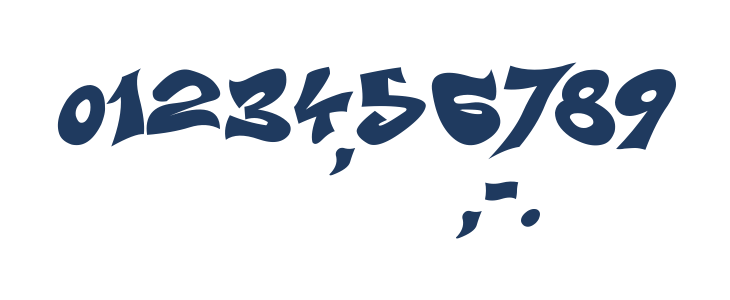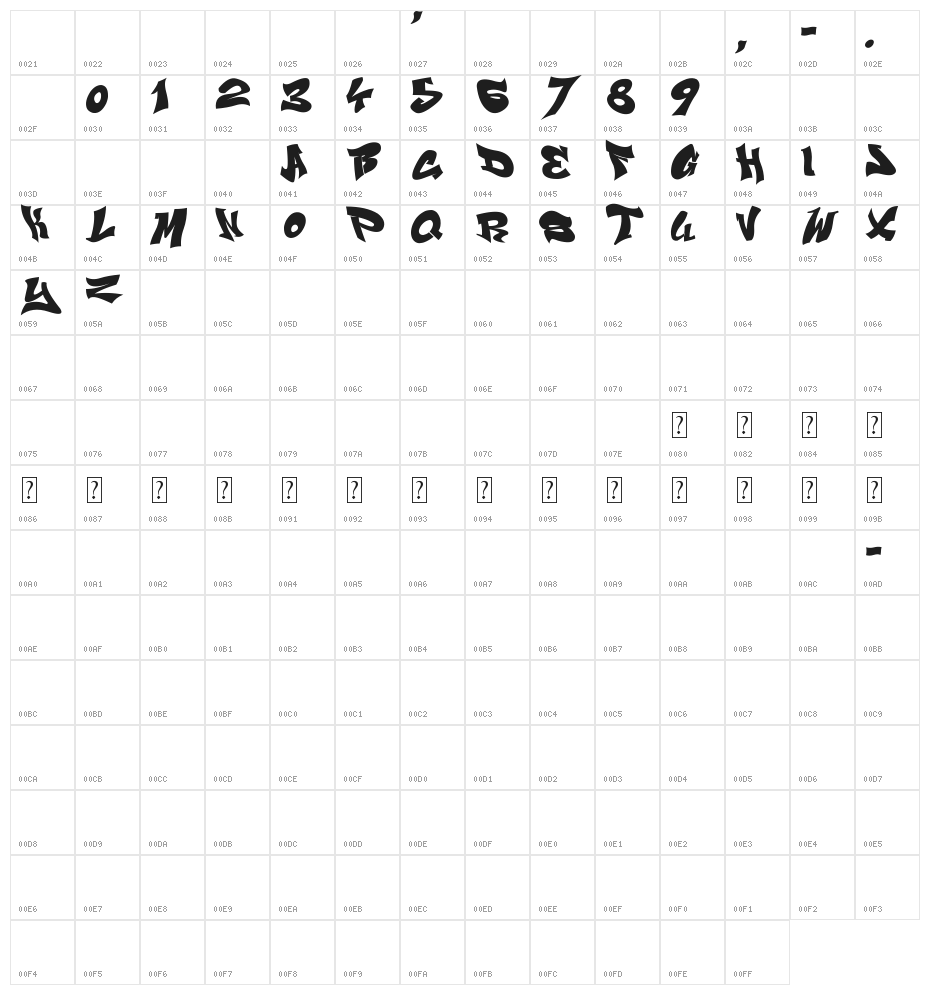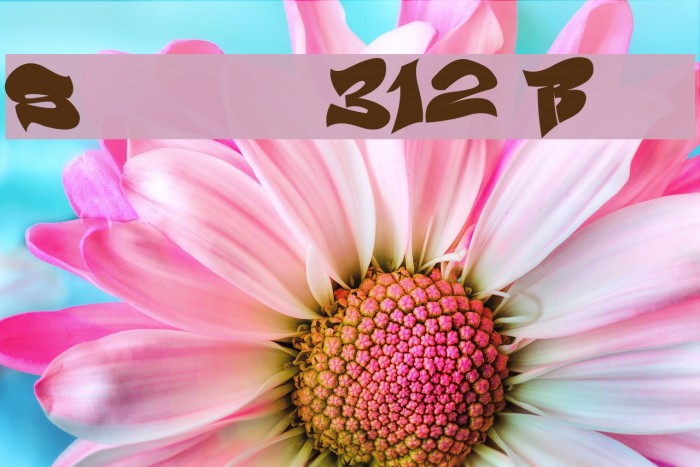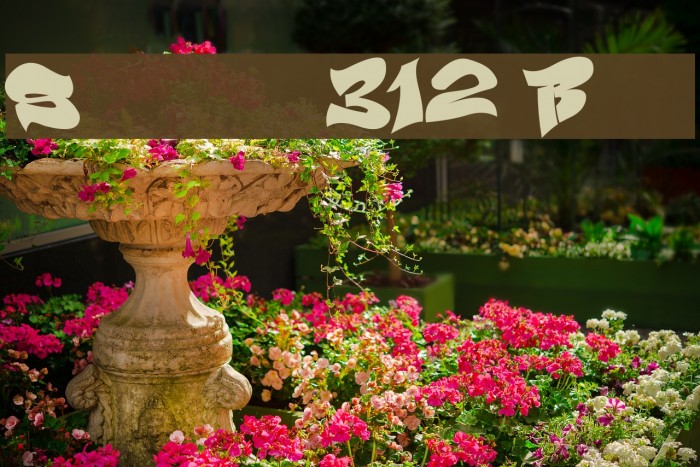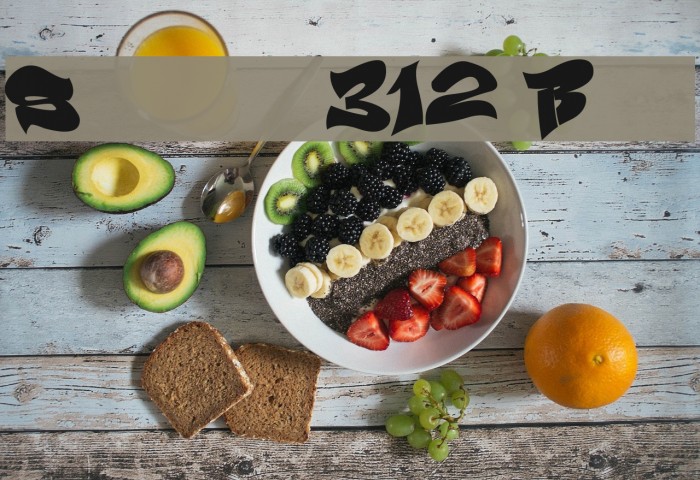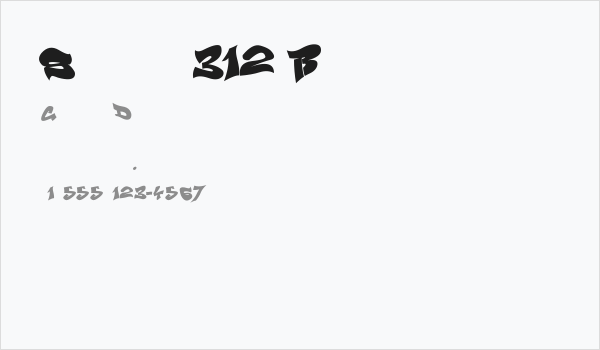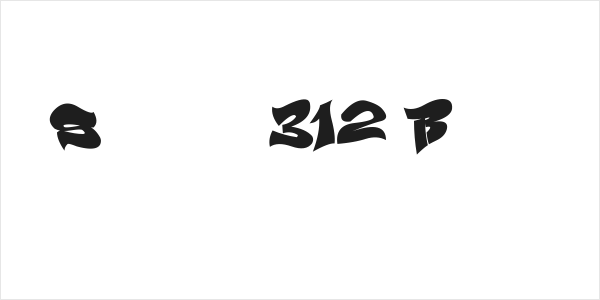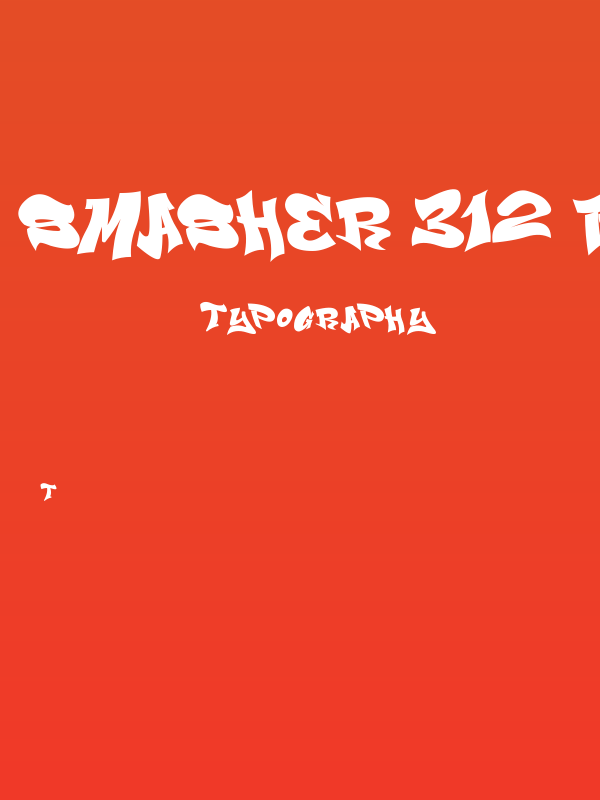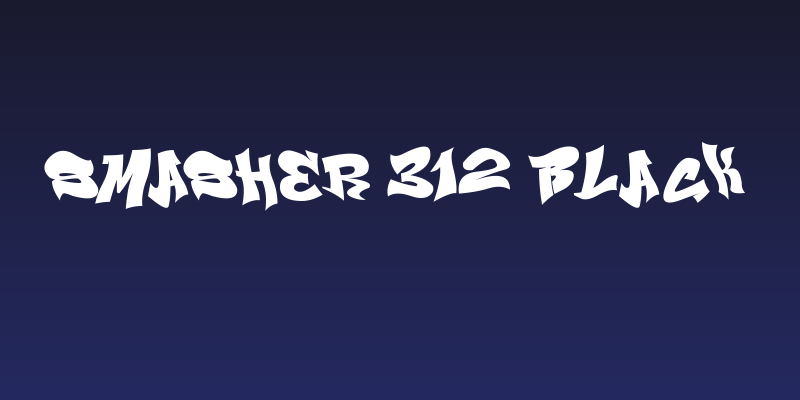
Smasher 312 Black Font
Smasher 312 Black Description
This font features a bold and dynamic style with a graffiti-like appearance. The characters are heavily stylized with sharp angles and exaggerated curves, giving it a sense of movement and energy. The uppercase letters are particularly striking, with a strong presence that demands attention. The numbers and special characters maintain this bold aesthetic, ensuring consistency across all glyphs. This font is perfect for projects that require a strong, urban, and edgy look.
Overall StyleUrban, Edgy, Graffiti
Proposed ProjectsIdeal for street art designs, music album covers, urban-themed posters, and edgy branding projects.